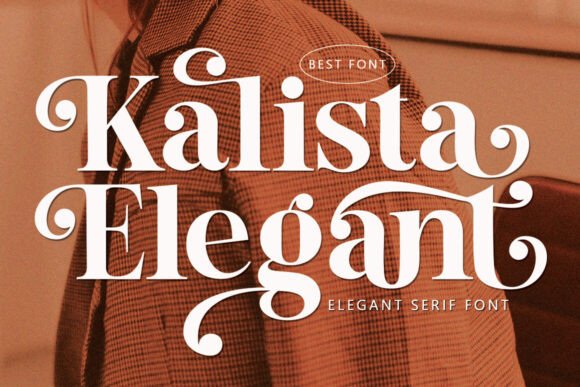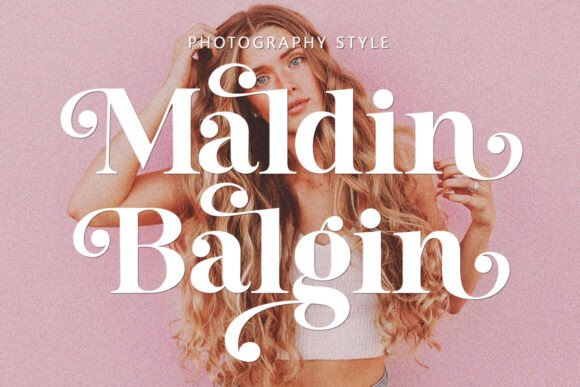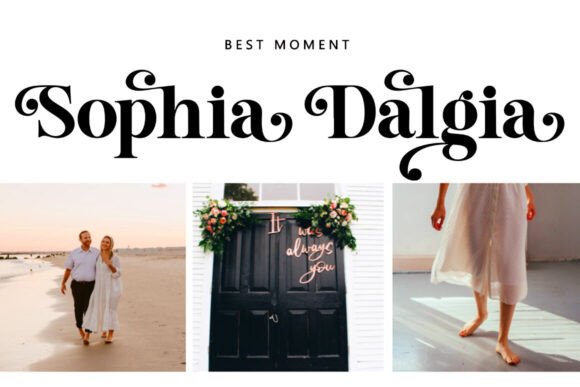
Kalista Elegant Font
About the Kalista Elegant Font
Unleash your creativity with Kalista Elegant Font, a versatile font perfect for a wide range of applications. Kalista Elegant is an elegant serif typeface created to be the center of attention. With stunning contrast, organic curves, and crisp lettering, Kalista Elegant is a phenomenal choice for any project, whether focused on luxury branding or typefaces. This font is perfect for many projects, for modern or even retro vintage designs, branding, logos, crafts, stickers, sublimation, wedding invitations and more. This font is suitable for various projects such as logos, brands, magazines, signage, fashion and more.
Kalista Elegant Font Usage Examples
Kalista Elegant Font Example